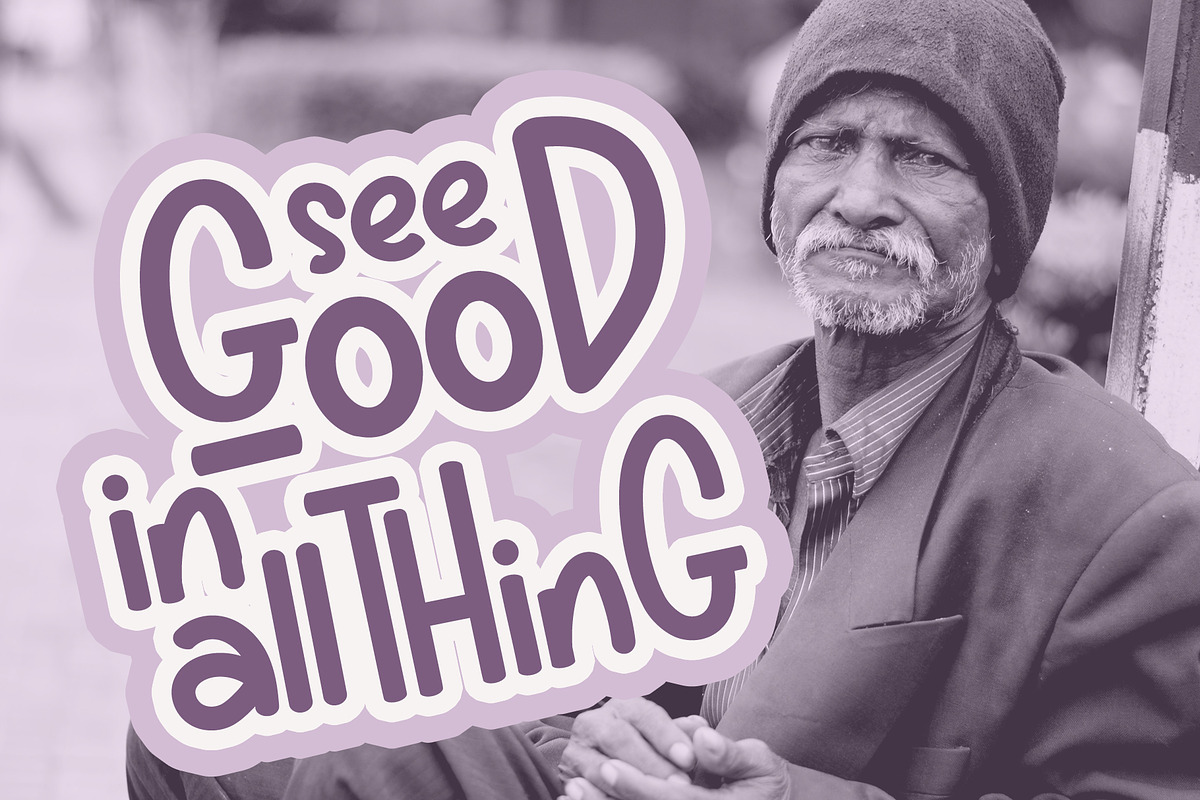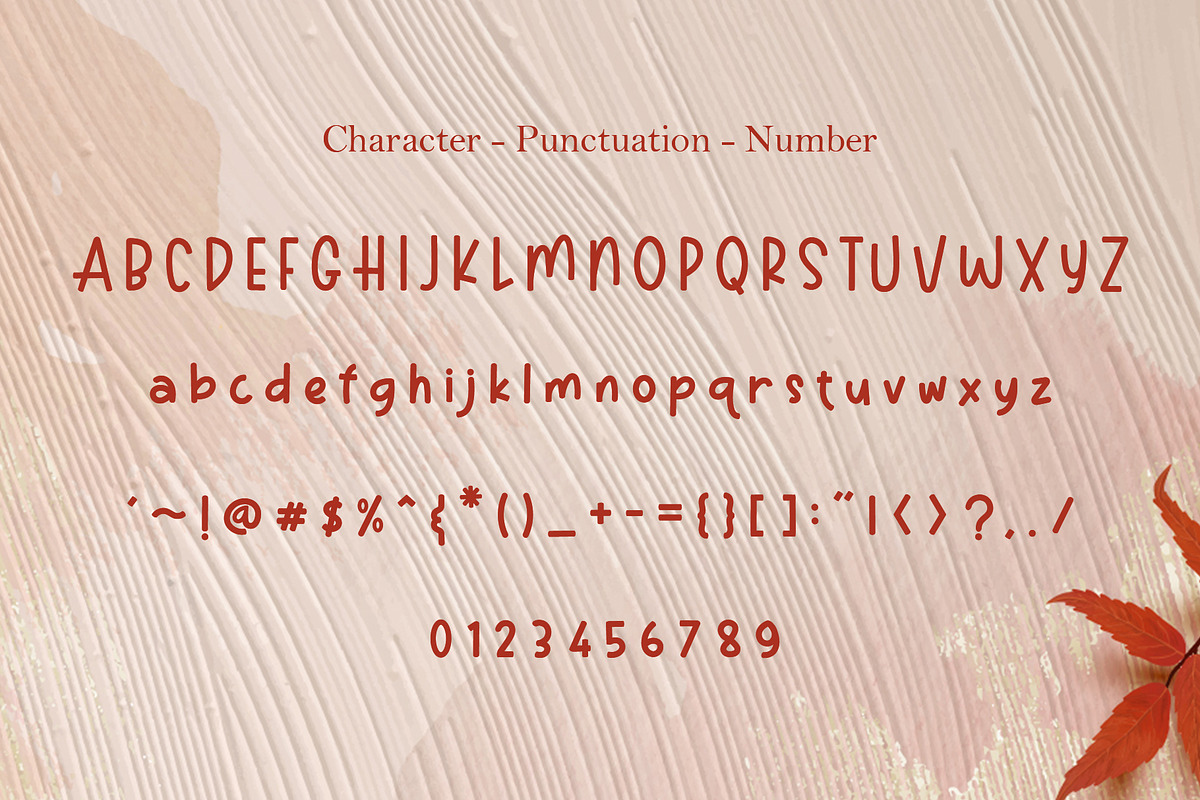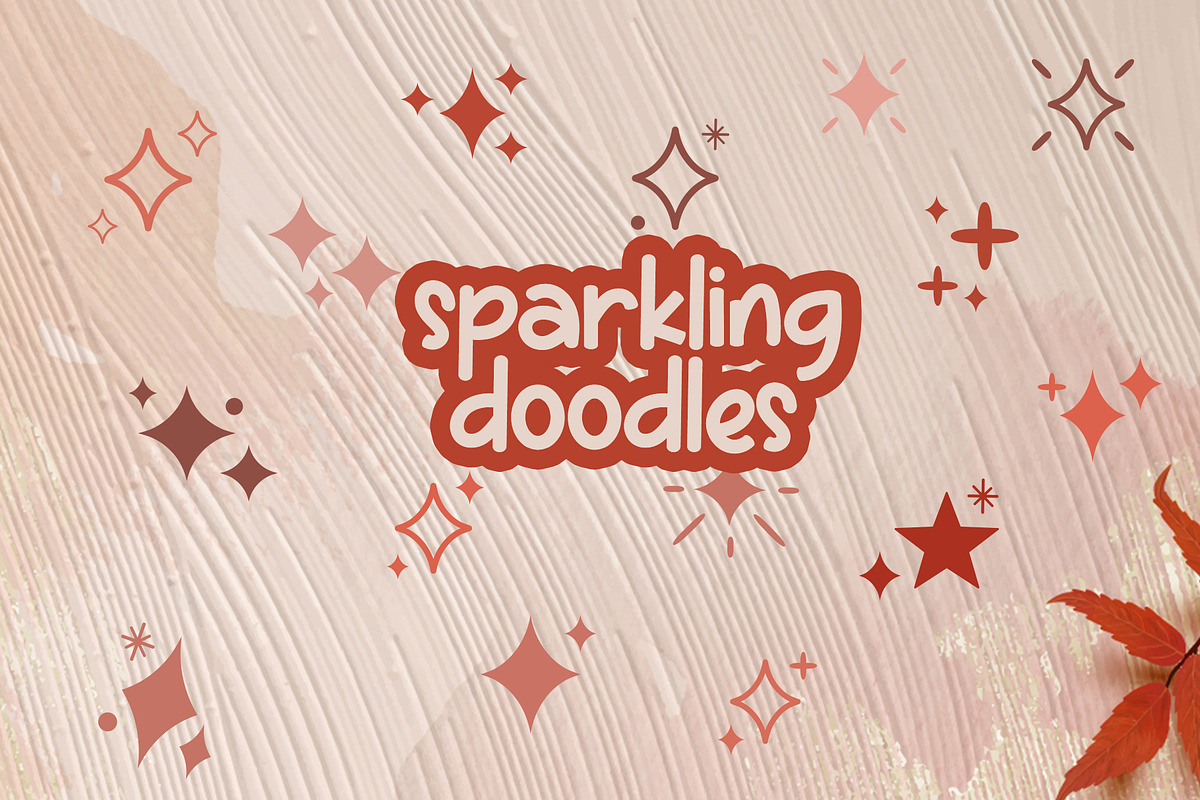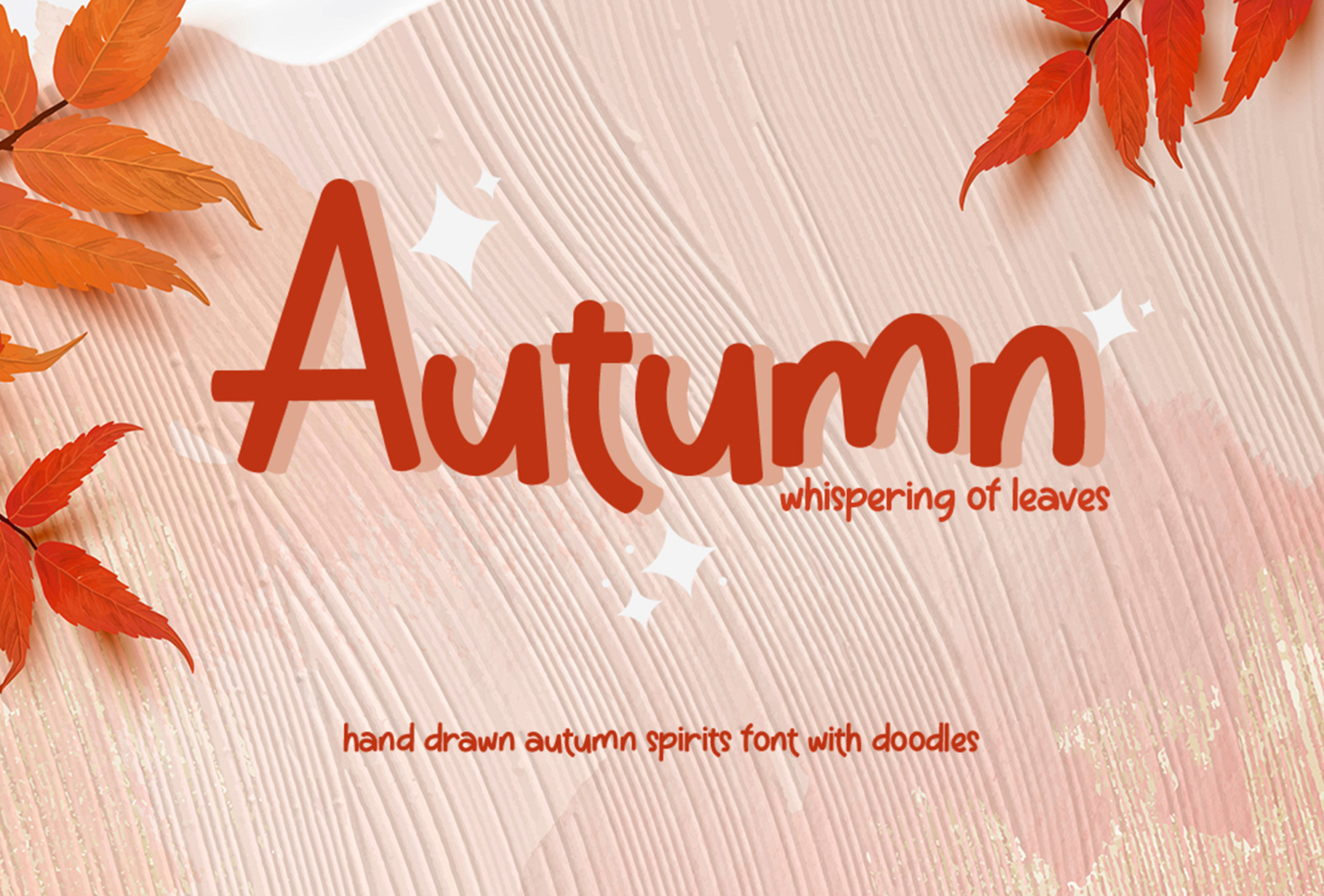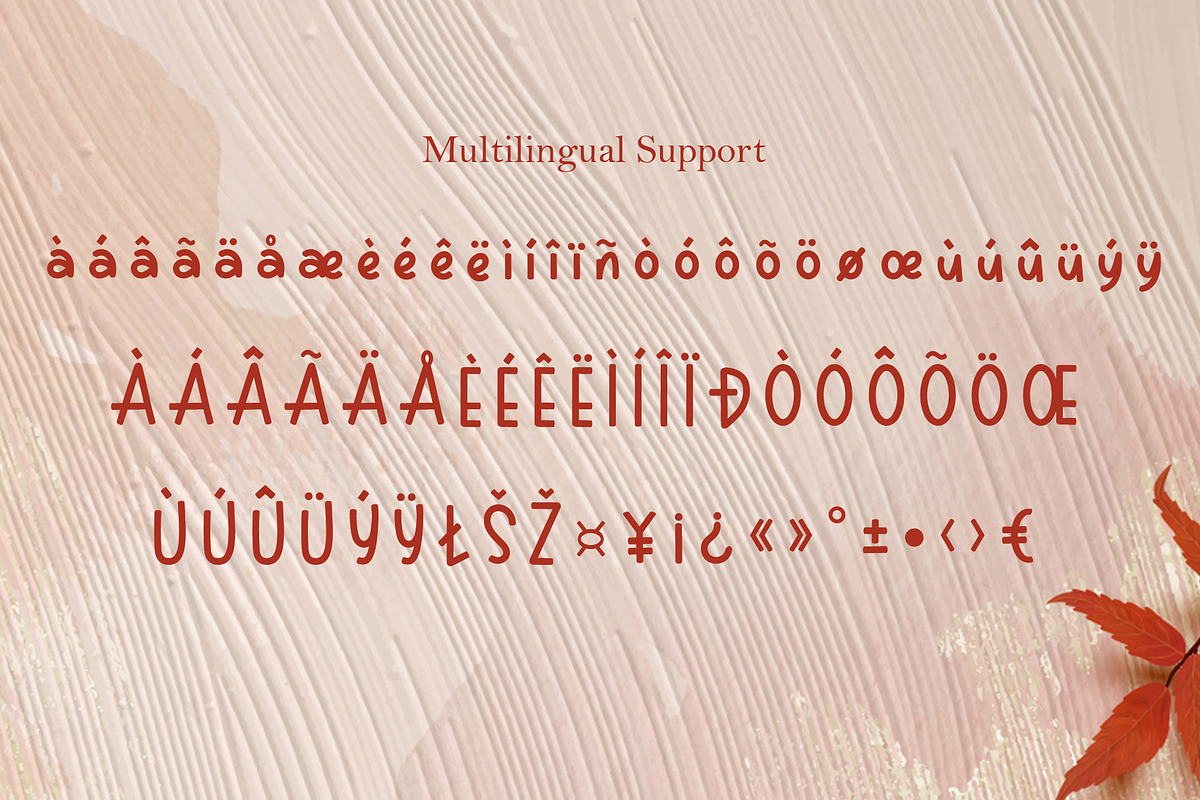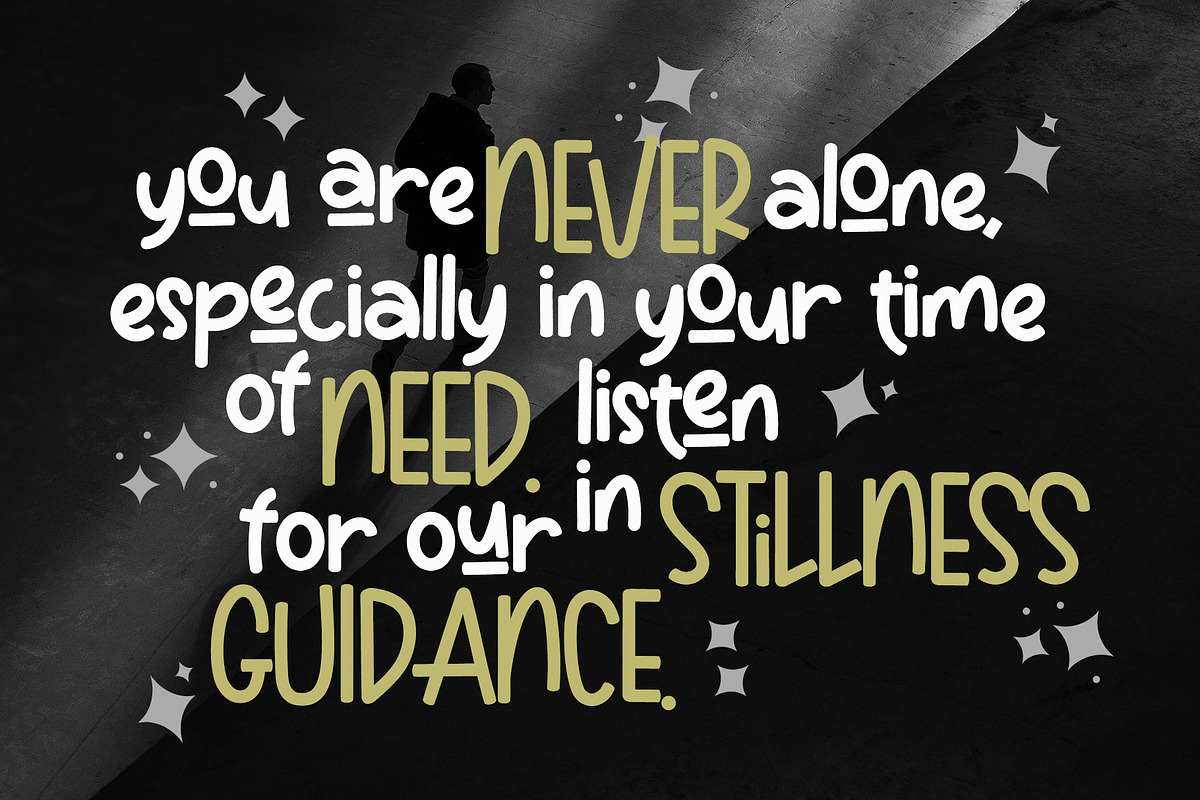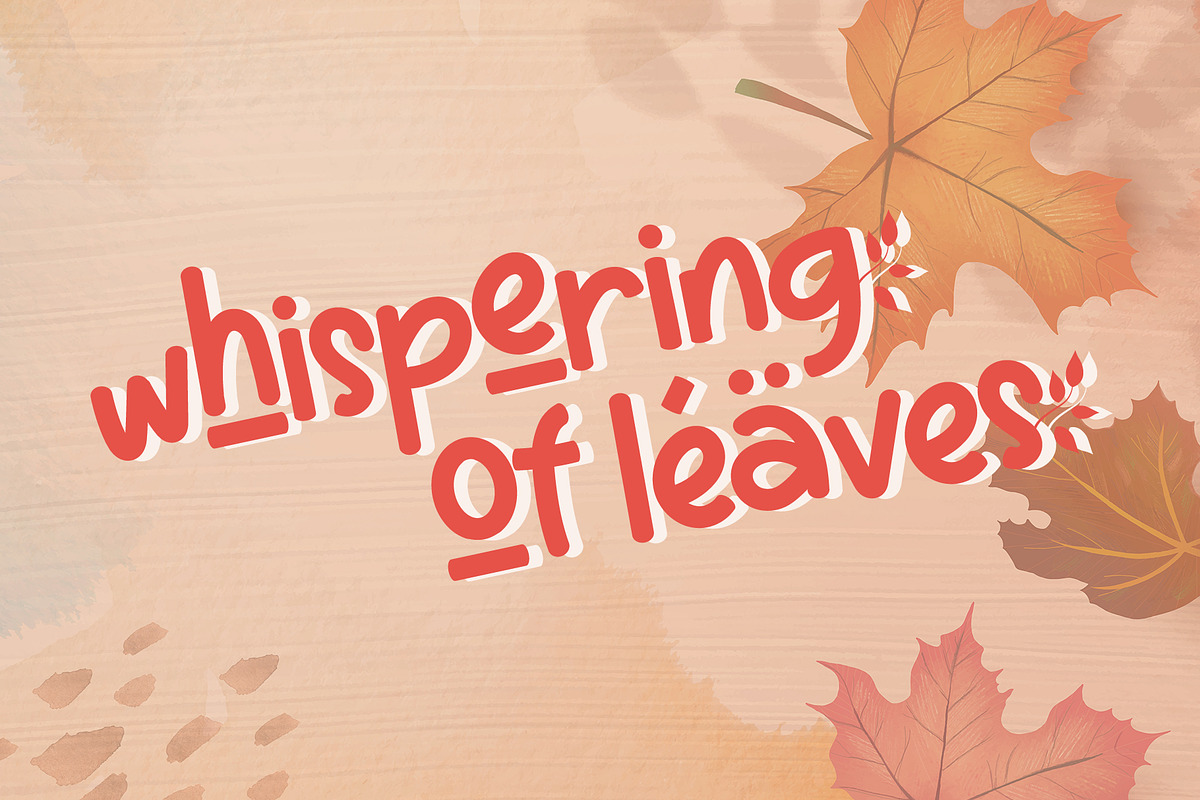
Autumn | Handdrawn Font with Doodles
Autumn Font is a hand drawn autumn spirits font. Expertly designed to make your creation look out of this world, this font has the potential to take your creative ideas far further. Perfectly fit for your awesome unique design, greeting card, social media, quotes and also unique alternative for display design.
- Hand drawn autumn spirit font (a-z, A-Z).
- Numbers and punctuations.
- Stylistic alternates and ligatures.
- Include Sparkling Doodles.
- Multilingual support character.